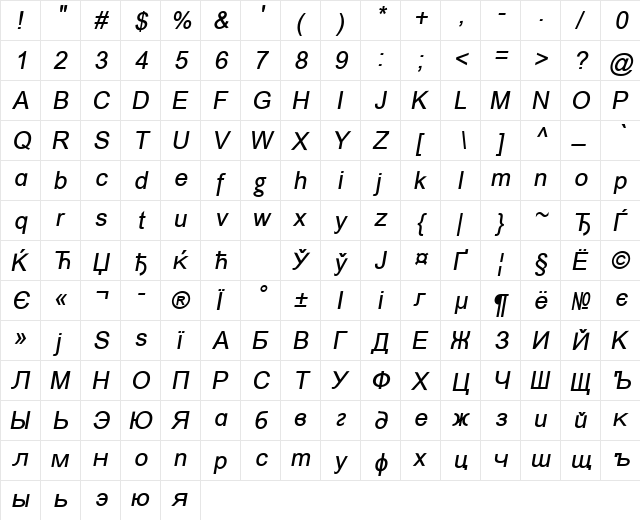
ER Univers 1251 Italic
Design Context for ER Univers 1251 Typeface
ER Univers 1251 offers clean, dependable letterforms without strong stylistic allegiance, making it a practical choice for designers who need flexibility. Its italic angle brings a sense of urgency and motion to the letterforms.
Pro Tip: Use ER Univers 1251 for emphasis, pull quotes, and subheadings where its slanted energy can add rhythm to the layout.